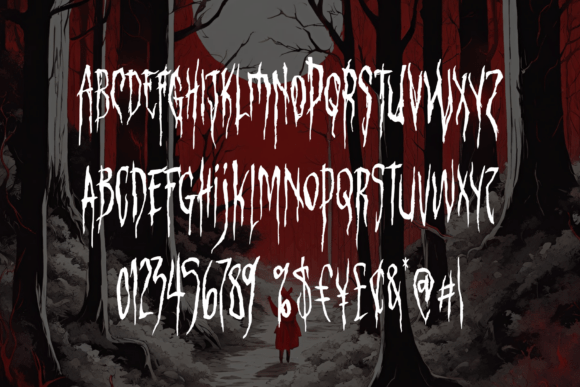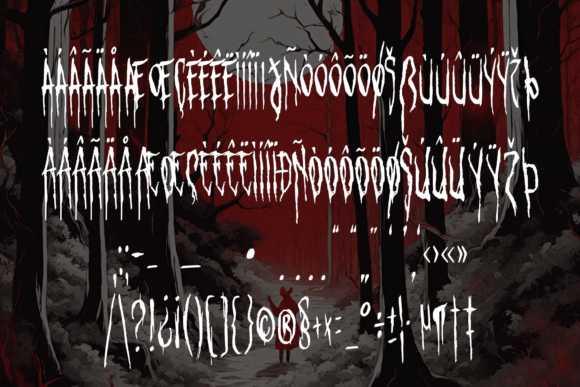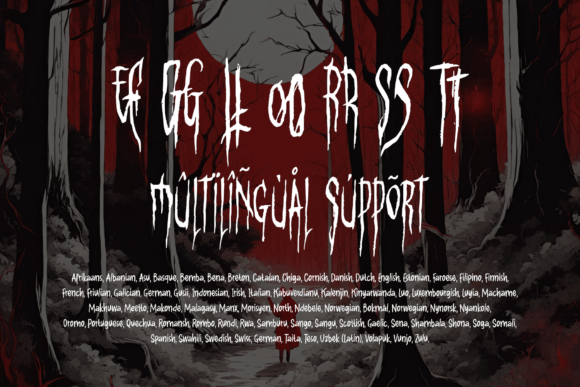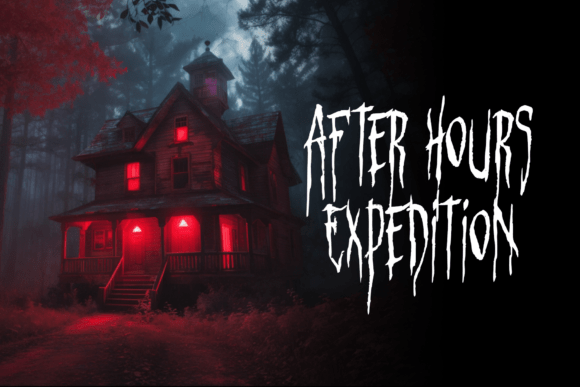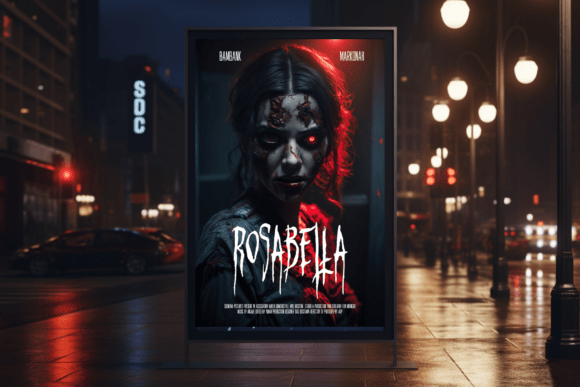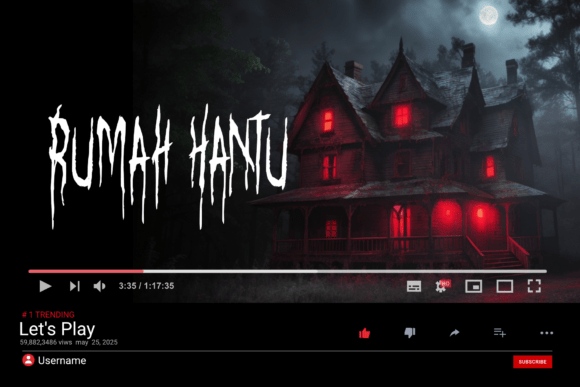
Introduction to Phantom Phrases Font
Have you ever stumbled upon a mysterious phrase etched on an old wall, sending shivers down your spine? That’s the exact atmosphere the Phantom Phrases Font brings to your creative project. This high-quality font combines typographic elements with supernatural undertones, making it the perfect design resource for designers looking to add a touch of horror and mystery to their work.
Whether you’re working on a movie poster, a mystery story, or a logo for a supernatural event, the Phantom Phrases Font is sure to captivate your audience. Its fine, sharp lines and signs of invisible entities will transport your viewers to a world beyond the ordinary. With its transparent background and web font capabilities, this font is a valuable resource for designers looking to take their creative projects to the next level.
Key Features of Phantom Phrases Font
- Unique and Creative Typography: Phantom Phrases Font is designed to add an element of mystery and intrigue to any creative project.
- High-Quality Design: This font features intricate details and a high level of polish, making it a valuable design resource.
- Perfect for Creative Projects: Phantom Phrases Font is ideal for use in creative projects, such as graphic design, typography, and visual arts, where a unique and captivating font is essential.
Honest Review: Phantom Phrases Font
I recently had the chance to work with the Phantom Phrases Font for a creative project, and I must say, it’s a high-quality design resource that can elevate any visual content. ✨ The font’s unique style and character make it perfect for adding a touch of whimsy to your designs.
- Unique style and character that adds a touch of whimsy
- ⚠️ Limited character set, which may limit its use in certain contexts
- ⚠️ Not suitable for formal or professional projects where a more traditional font is needed
Overall, the Phantom Phrases Font is a solid design resource that’s perfect for designers looking to add some personality to their work. While it has some limitations, its unique style and high-quality design make it a valuable addition to any design toolkit.
Tips for Getting the Most Out of the Phantom Phrases Font
To get the most out of the Phantom Phrases Font, experiment with different font sizes, colors, and layer settings. You can also combine the font with other design elements, such as images and shapes, to create a unique and eye-catching design.
The Phantom Phrases Font is perfect for a variety of creative projects, including logos, graphics, presentations, and documents. It’s also ideal for social media graphics, marketing materials, and branding projects that require a unique and high-quality design resource.
Alternatives to Phantom Phrases Font
Fontin is a high-quality font ideal for creative projects that require a unique, elegant touch. Its transparent background makes it perfect for use on images with complex backgrounds. When to use: Fashion, luxury, and high-end branding projects. Comparison to Phantom Phrases Font: Fontin has a more refined, sophisticated look, whereas Phantom Phrases Font has a distressed, vintage feel.
Can I customize the Phantom Phrases Font to fit my design needs?
Yes, the Phantom Phrases Font is fully editable, allowing you to customize the text and phrases to fit your design needs. You can change the font size, color, and style using any design software that supports the font file formats. Additionally, you can use the transparent background to create a sense of depth and layering in your designs.